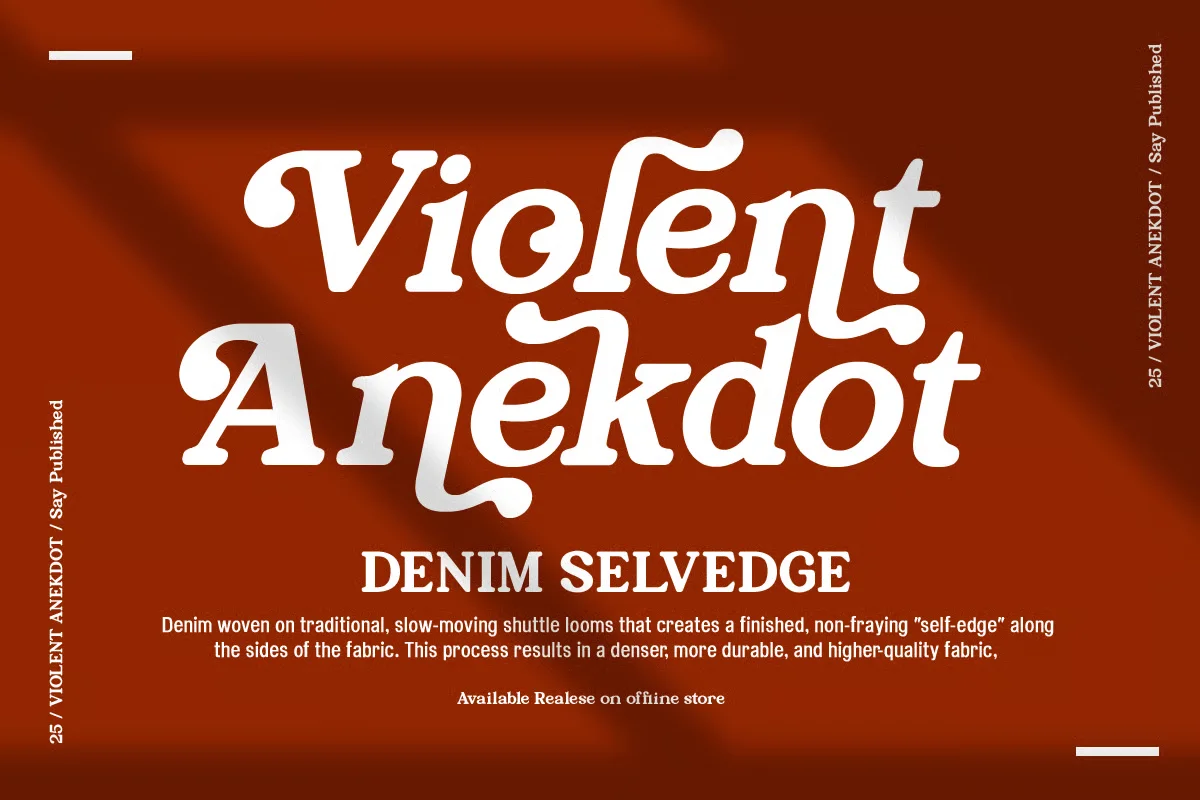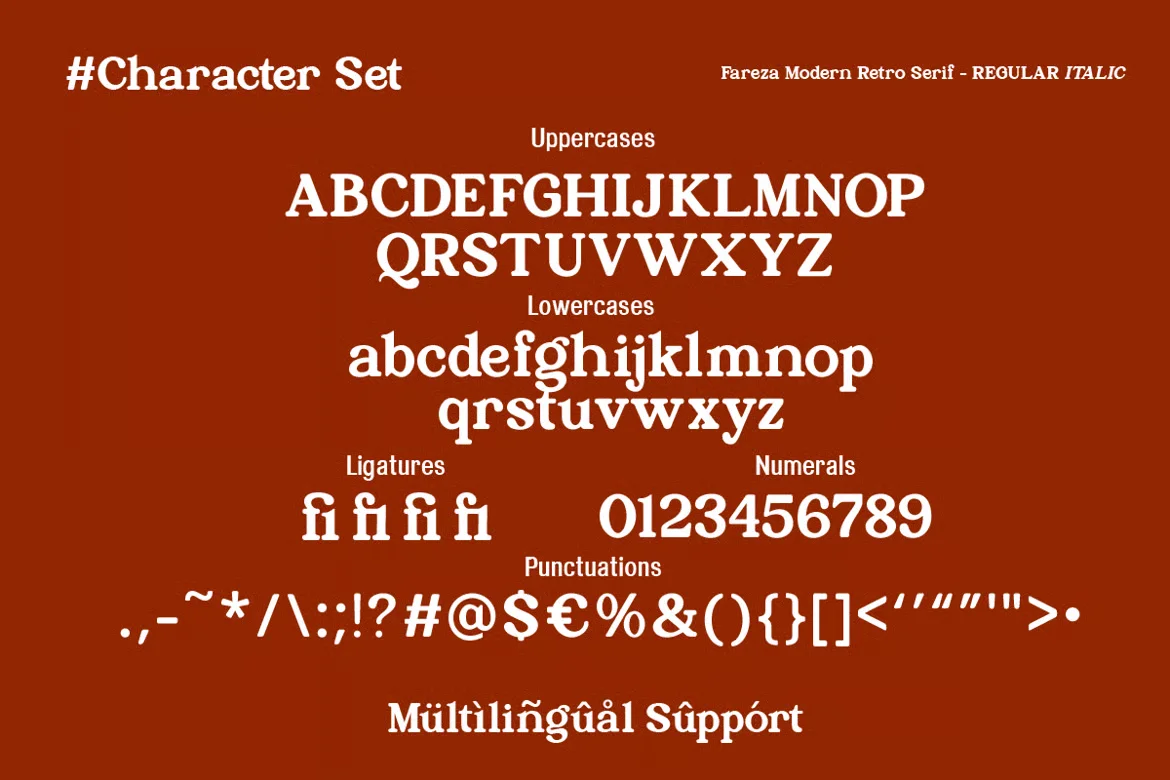
Fareza Font gives designers a simple way to create handwritten titles that stay readable in print and digital layouts. Its script style supports invitations, logo design, and social media posts where a soft, drawn feel improves the message.
Fareza Font uses connected strokes, rounded curves, and moderate slanting to form steady letter shapes. The typeface often includes alternates and ligatures for custom wordmarks or decorative headings. Its low stroke contrast keeps the letters consistent, making it easy to use on stationery and product packaging.
Use Fareza Font for wedding invitations, boutique brand marks, and Instagram posts. To balance the script shapes, pair it with a geometric sans-serif for paragraphs or website text. Larger sizes help the curved strokes stay crisp and readable.